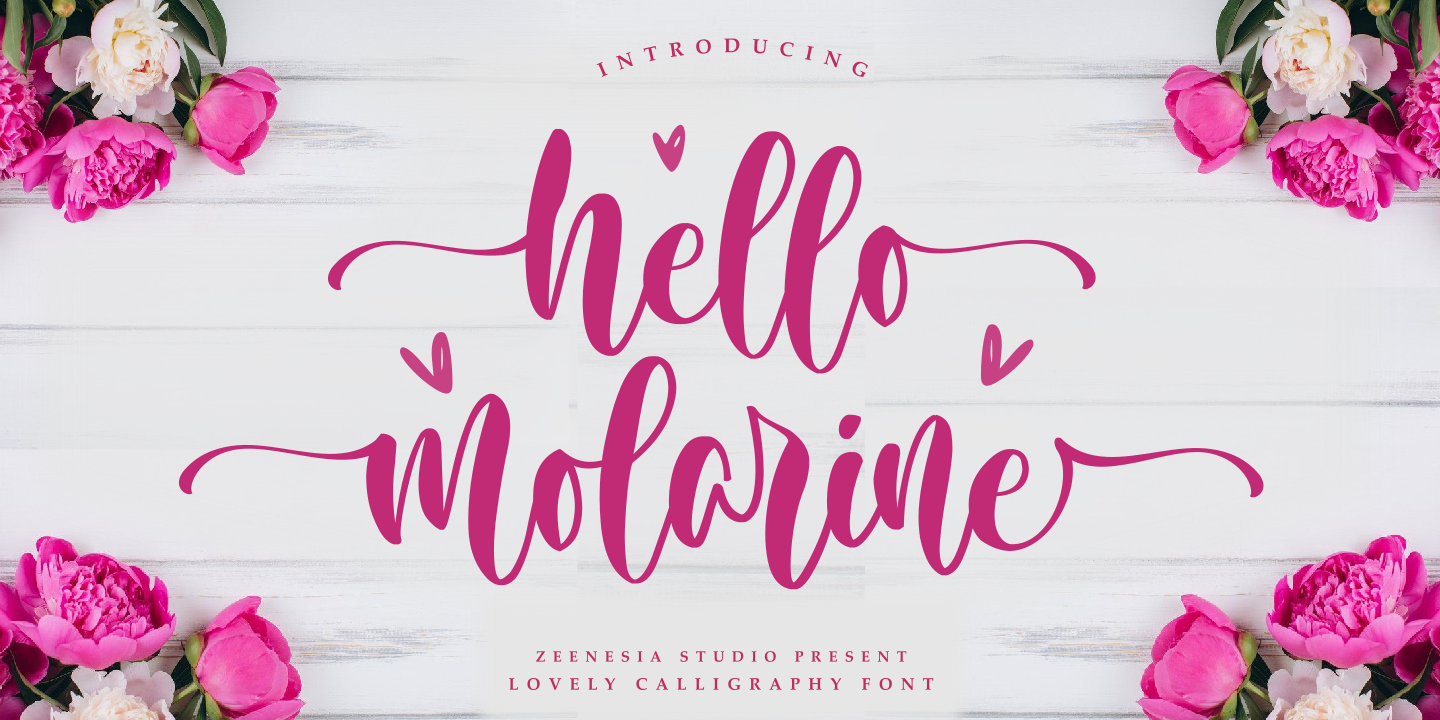
Hello Molarine Font excels in friendly greeting cards, cheerful children's book covers, welcoming coffee shop branding, playful nursery wall art, warm community event posters, inviting restaurant menus, joyful birthday invitations, cozy home decor designs, heartwarming family newsletters, and delightful social media graphics.
Hello Molarine Font is exciting because it radiates pure warmth and genuine friendliness through its lovingly crafted letterforms that seem to smile with every character, creating an instant emotional connection that makes people feel welcomed and cherished. This delightful typeface embodies the perfect harmony between handcrafted charm and heartfelt sincerity, making it an essential tool for designers who believe that typography should not just communicate words, but also spread joy and create meaningful human connections.
The Hello Molarine Font family includes a heartwarming collection featuring Regular, Bold, Light, Script variations, Handwritten styles, Decorative elements, Playful alternates, Casual formats, and charming embellishments, providing complete design flexibility for any friendly and welcoming creative project.
Hello Molarine Font represents the essence of human warmth in typography, delivering unmatched friendliness for projects that celebrate community, family, and genuine human connection. Its distinctive approachable character structure makes it particularly effective for brands seeking to establish authentic relationships with audiences who value sincerity and personal touch.
The welcoming appeal of Hello Molarine Font makes it ideal for family-owned businesses, children's brands, community organizations, local cafes, educational institutions, and service providers requiring genuine, approachable visual communication. Its friendly letterforms ensure memorable brand recognition among warm, family-oriented audiences.
Creative professionals recognize how Hello Molarine Font Free Download provides instant access to premium friendly typography that transforms ordinary designs into extraordinary expressions of warmth and human connection. The font's comprehensive character set supports diverse welcoming applications while maintaining its distinctive cheerful appeal.
Hello Molarine Font's advanced features include contextual alternates, friendly ligatures, playful swashes, and warm styling options that enhance the font's welcoming character. These heartfelt elements enable designers to create compelling layouts that resonate with family-focused audiences and community-minded demographics.
The versatility of Hello Molarine Font extends gracefully across traditional and digital platforms, proving equally effective for family websites, community mobile apps, welcoming social media campaigns, children's digital content, and heartwarming digital publications. Its scalable design maintains genuine warmth at any size.
For design professionals creating connections, Hello Molarine Font delivers the perfect combination of authentic charm and professional functionality. Its friendly appeal combined with technical excellence makes it an indispensable resource for creating memorable visual communications that capture the genuine spirit of human warmth and community connection in today's increasingly digital world.